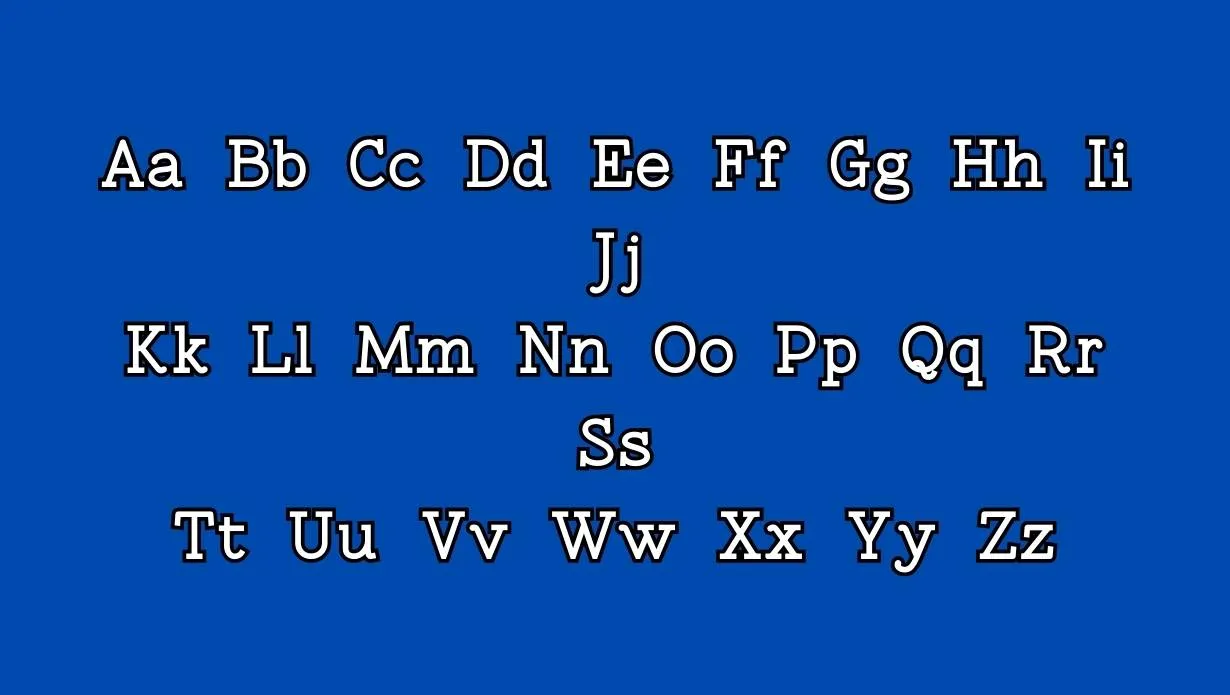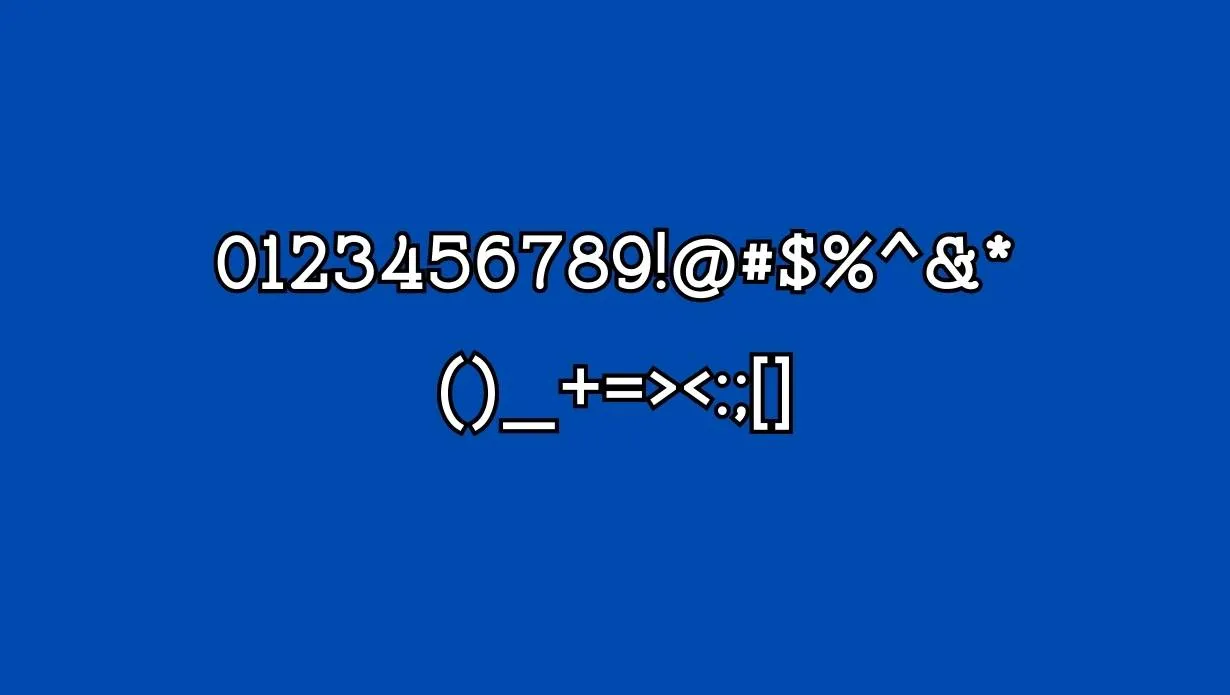
Eskool Font was designed by Saksham Verma and it was published in back 1997. It falls under the Slab-Serif category. You can download this typeface in Open type and true type formats.
You can pair this font with alfa slab one font to acquire the attention of a large audience. This typeface is very much similar to the Neue Metana font that you can use as a replacement.
View of Eskool Font
| Name | Eskool Font |
| Designer | Saksham Verma |
| Style | Slab-Serif |